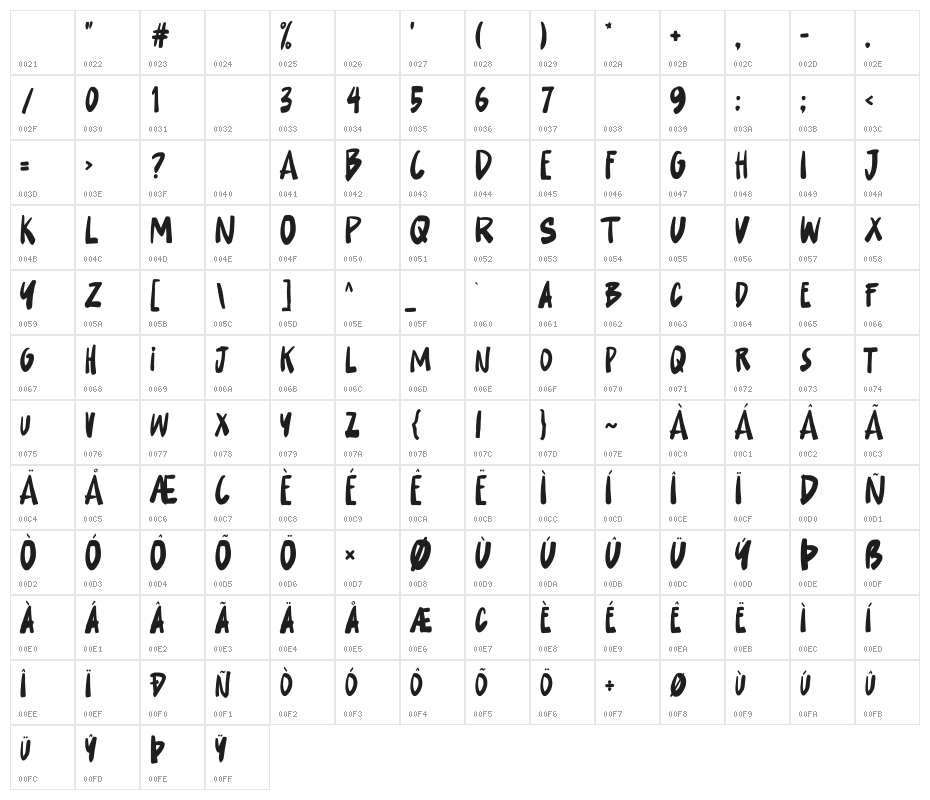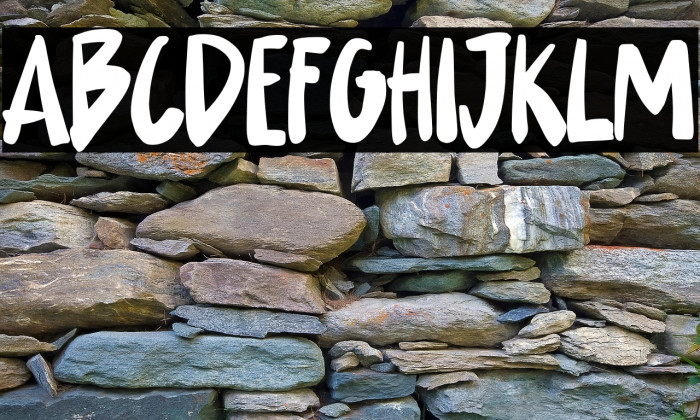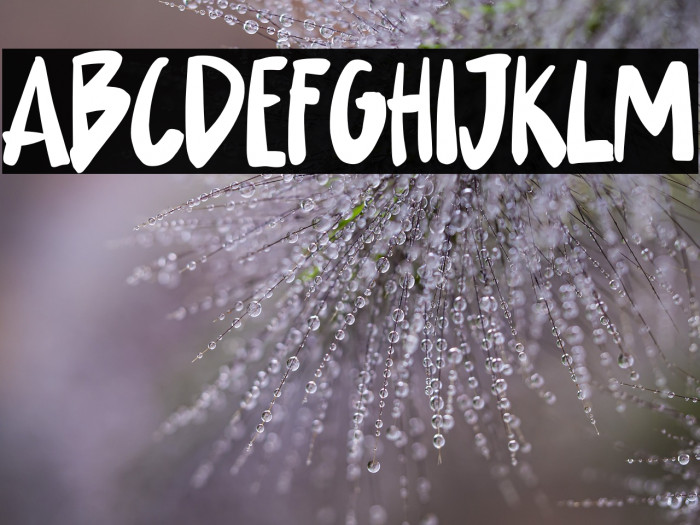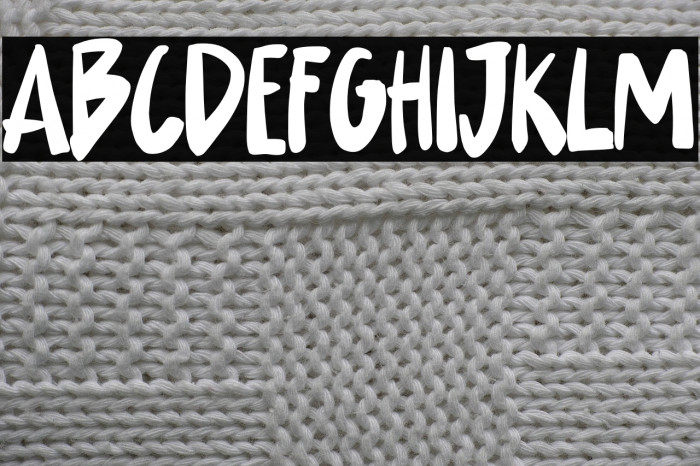
Steelhead Font
Steelhead Description
This font features a bold, handwritten style with a playful and energetic appearance. The letters are thick and slightly irregular, giving them a dynamic and informal feel. The uppercase and lowercase characters maintain a consistent style, with rounded edges and a slight slant, adding to the casual aesthetic. Numbers and special characters are equally bold and maintain the same lively character as the letters. The overall look is reminiscent of graffiti or street art, making it ideal for projects that require a youthful and vibrant touch.
| Proposed Projects | Perfect for posters, branding, social media graphics, and any project needing a lively, informal touch. |